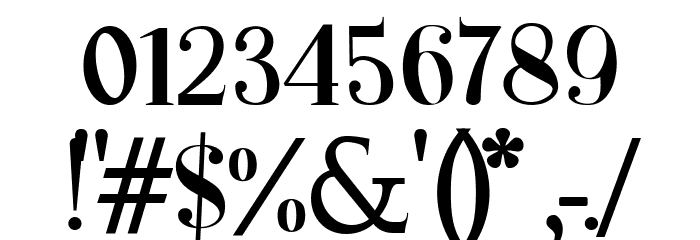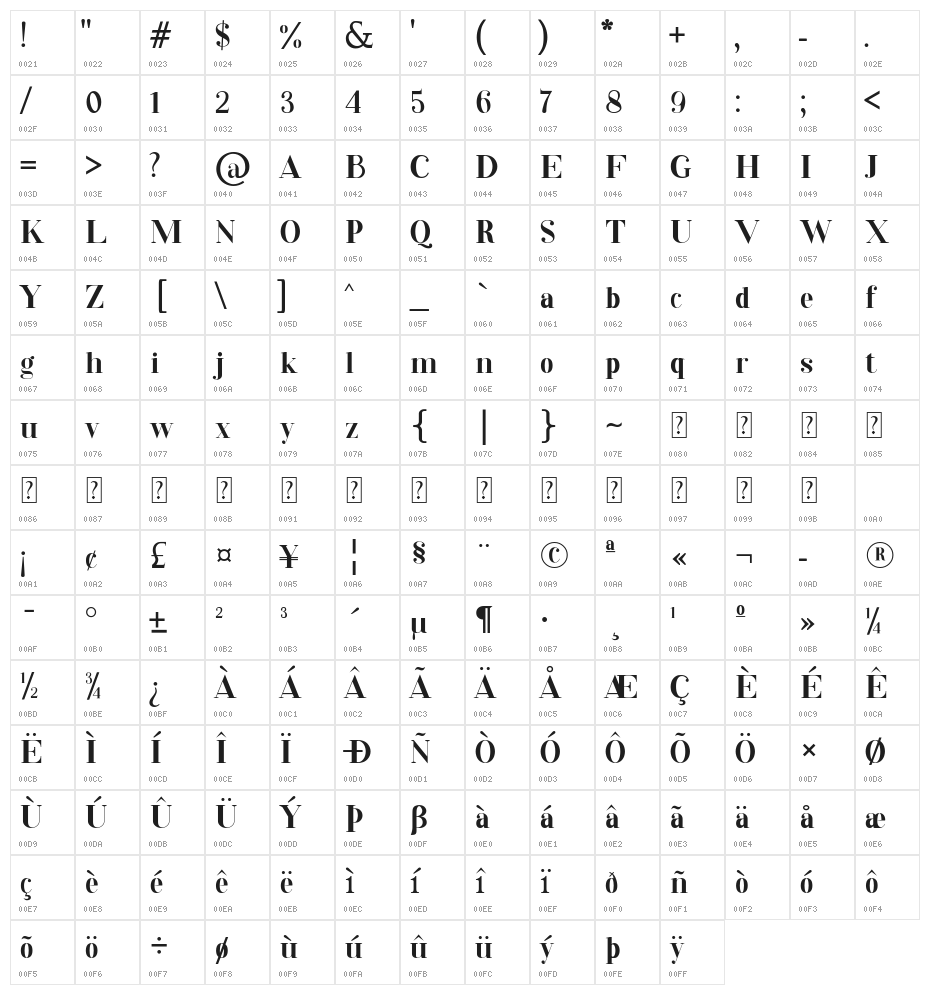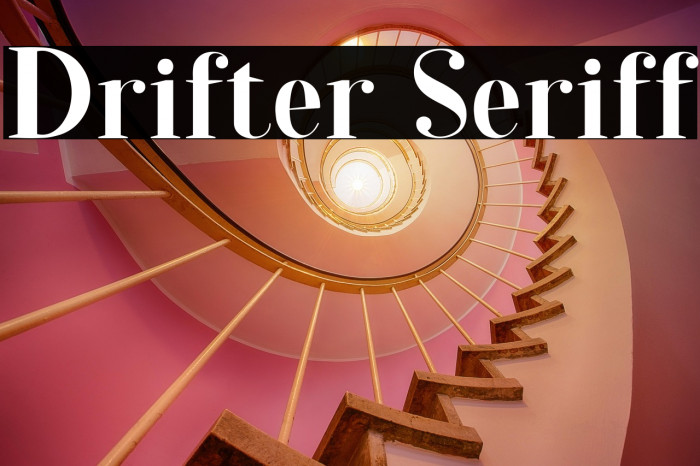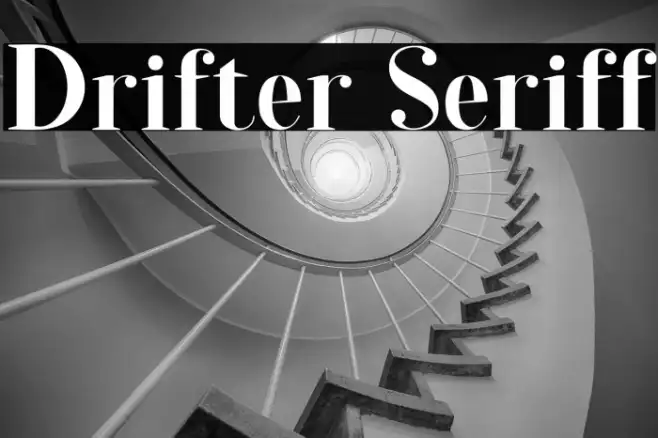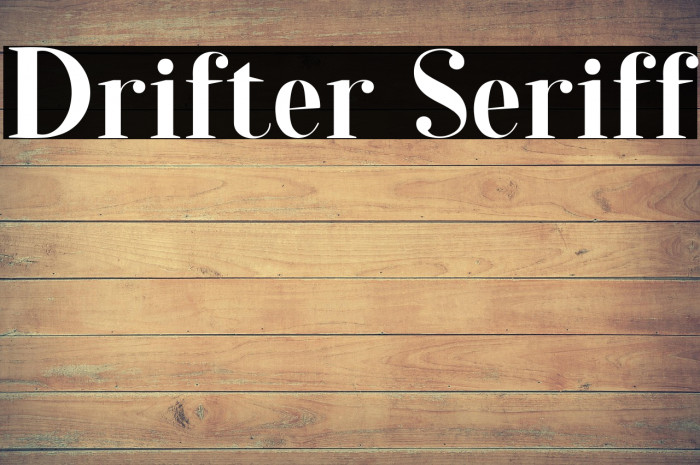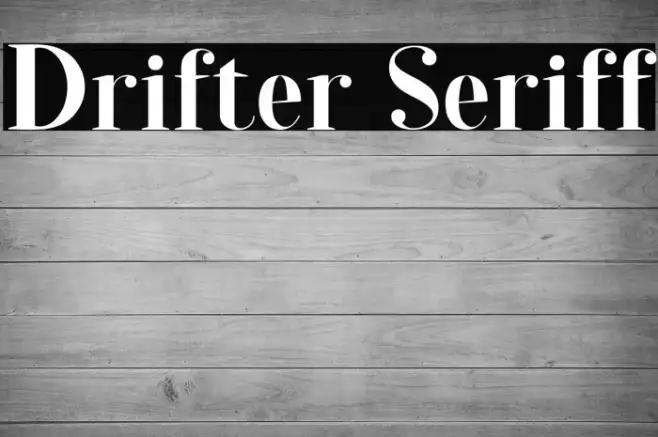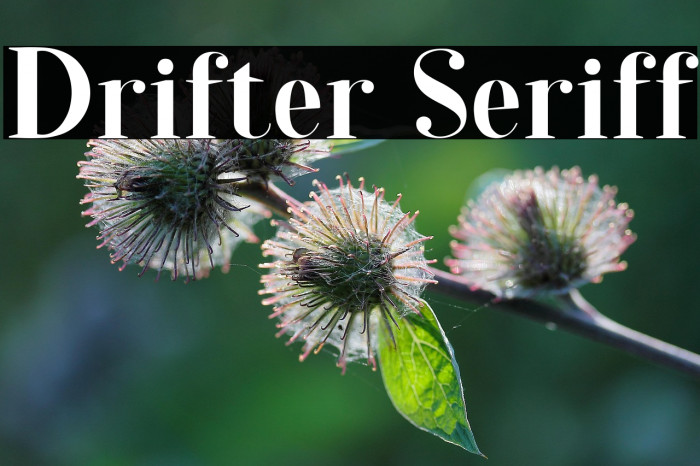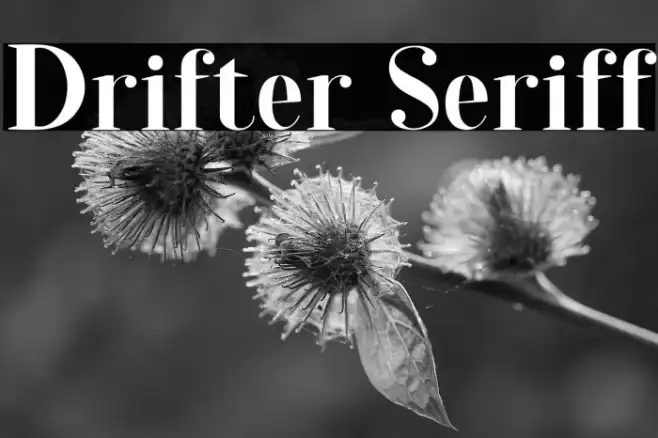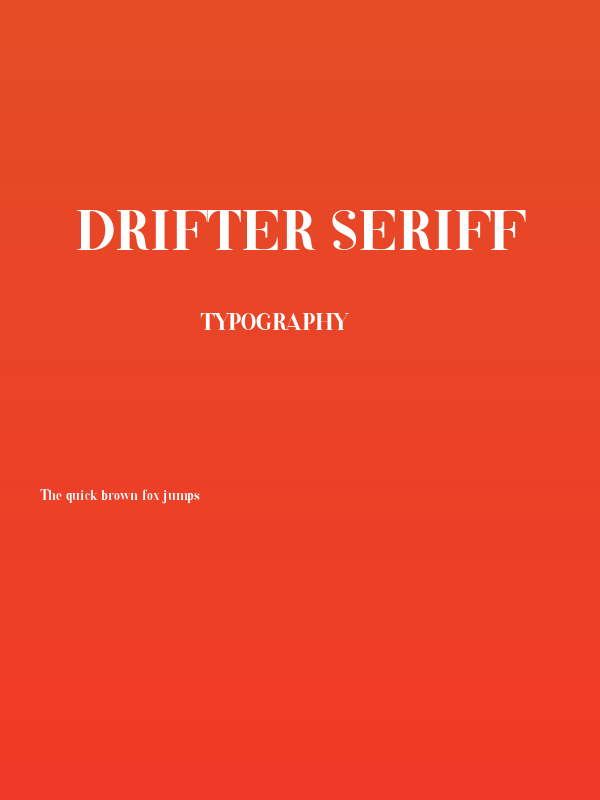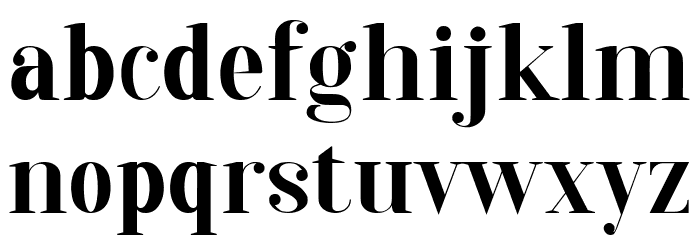
Drifter Seriff Font
Drifter Seriff Description
This font features a classic serif style with a modern twist, characterized by its bold and elegant strokes. The uppercase letters exhibit a strong presence with sharp serifs and a balanced weight, making them ideal for headlines and titles. The lowercase letters maintain a consistent style, offering readability and sophistication. Numbers are clear and distinct, ensuring they stand out in any context. Special characters are thoughtfully designed, complementing the overall aesthetic. The font's versatility makes it suitable for a wide range of applications, from editorial design to branding.
| Proposed Projects | Ideal for editorial design, branding, headlines, and titles. |